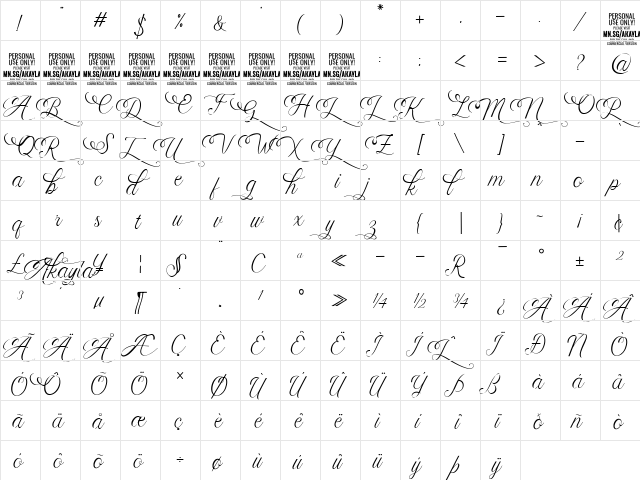
Akayla Script Deco PERSONAL USE Regular
Design Context for Akayla Script Deco PERSONAL USE Typeface
Akayla Script Deco PERSONAL USE flows with the natural rhythm of handwritten lettering, making it ideal for designs that call for warmth and personal expression.
Font Pairing: Combine Akayla Script Deco PERSONAL USE with a simple geometric sans for maximum contrast — the tension between flowing curves and clean structure is a classic typographic pairing.
Pro Tip: Use Akayla Script Deco PERSONAL USE for short runs of text — names, titles, or taglines. Extended body copy in script faces tires the eye quickly.